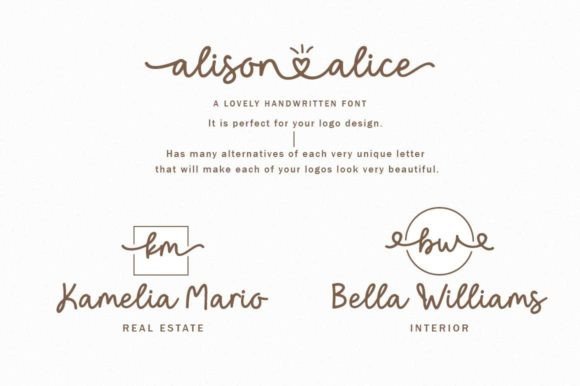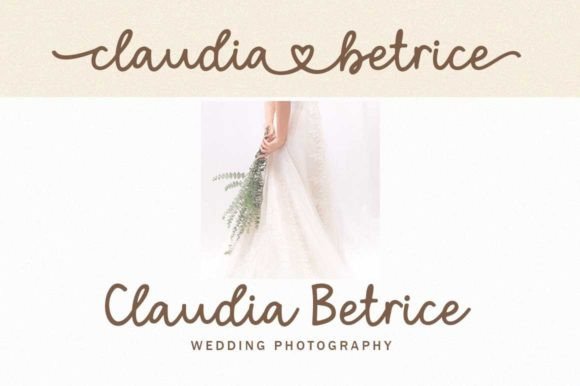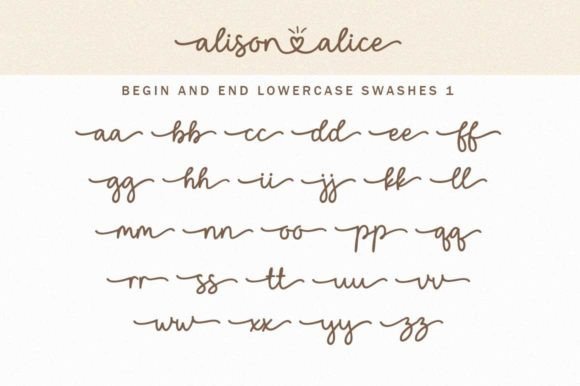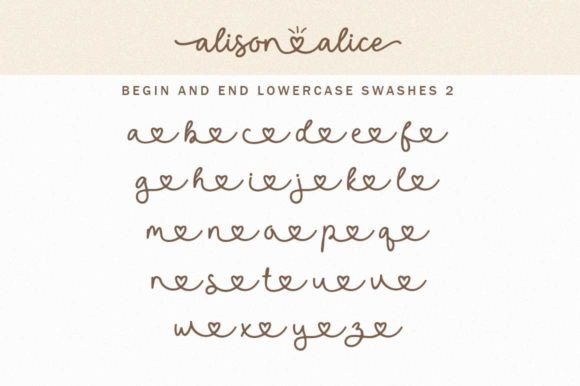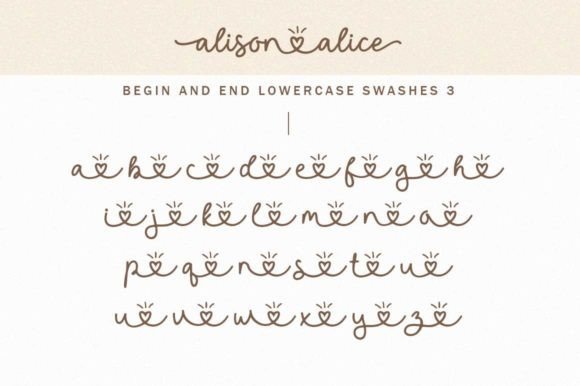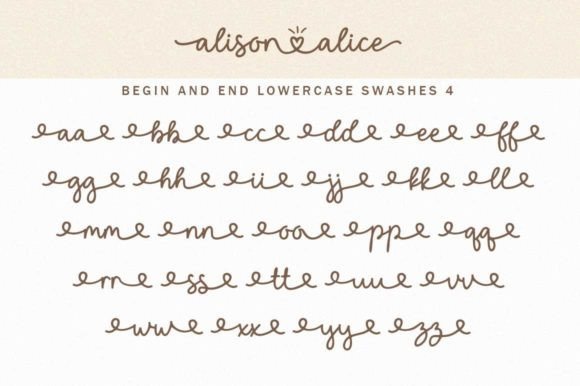
Introducing Alison Alice Font: Elevate Your Designs with Elegance
In the world of typography, a new star has emerged to capture the hearts of designers and crafters alike. Say hello to Alison Alice, the latest addition to the realm of handwritten fonts. This exquisite font is poised to revolutionize your design projects, offering a touch of elegance and sophistication that sets it apart from the rest. With its unique swashes and beautiful lettering, Alison Alice is the perfect choice for anyone looking to add a dash of personality to their creations.
The Beauty of Alison Alice
Alison Alice is not just another font; it’s an experience. Each letter is meticulously crafted with swashes that add a level of detail and refinement to your designs. The swashes, unique to each letter, provide an unparalleled level of customization, allowing you to create truly one-of-a-kind pieces. Whether you’re working on a branding project, a wedding invitation, or a DIY craft, Alison Alice brings a level of beauty and sophistication that’s hard to match.
One of the standout features of Alison Alice is its versatility. This font isn’t limited to a specific type of project; it’s incredibly adaptable. Imagine using it for:
- Branding and Logos: Create a memorable brand identity with a logo that exudes elegance and professionalism.
- Wedding and Event Invitations: Add a touch of romance and sophistication to your invitations, making your event unforgettable.
- DIY Crafts and Scrapbooking: Elevate your craft projects with beautiful, handwritten text that adds a personal touch.
- Marketing Materials: Stand out from the crowd with promotional materials that boast a refined, high-end look.
Why Choose Alison Alice?
With so many fonts available, why should Alison Alice be your go-to choice? Here are a few compelling reasons:
- Uniqueness: The distinctive swashes and elegant lettering ensure your designs won’t look generic.
- Readability: Despite its decorative nature, Alison Alice remains highly readable, making it suitable for both headings and body text.
- Customization: The variety of swashes allows for extensive customization, enabling you to tailor your text to fit your project’s specific needs.
Tips for Using Alison Alice
To make the most of Alison Alice, consider the following tips:
- Mix and Match Swashes: Don’t be afraid to experiment with different swashes to find the perfect combination for your design.
- Play with Sizes: Alison Alice looks stunning in various sizes. Experiment with different font sizes to add depth and interest to your designs.
- Pair with Complementary Fonts: For added visual interest, pair Alison Alice with a more straightforward font to create a striking contrast.
Alison Alice is more than just a font; it’s a design statement. Its elegant handwritten style, complete with unique swashes, offers endless possibilities for creative expression. Whether you’re a professional designer or a crafting enthusiast, Alison Alice has the potential to transform your projects, adding a touch of beauty and sophistication that’s sure to impress. So why wait? Dive into the world of Alison Alice and discover a new way to bring your designs to life.